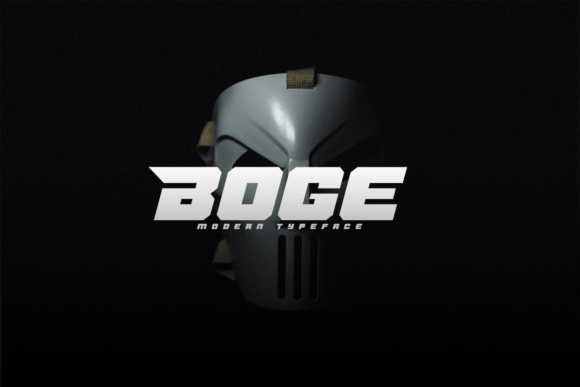
Unleash the Power of Boge Font: Experience Boldness Like Never Before!
In a world flooded with ordinary fonts, Boge Font emerges as a beacon of boldness, a true game-changer designed to bring your creative visions to life. This stunning display font, crafted by the masters at Line Creative, embodies the essence of strength and impact, poised to elevate your designs to unprecedented heights.
With Boge Font, you hold the key to unlocking a world of limitless possibilities. Its thick, robust letterforms exude a commanding presence, demanding attention and leaving an indelible mark on your audience. Whether you're crafting eye-catching headlines, captivating logos, or making a statement on social media, Boge Font stands ready to amplify your message and make it resonate with unrivaled impact.
Step into a realm where boldness reigns supreme, and let Boge Font be your trusted ally in creating designs that speak louder than words. Its distinctive character is a perfect fit for a multitude of projects, from branding and packaging to posters and digital marketing materials. Unleash your creativity and watch as Boge Font transforms your designs into masterpieces that command attention and leave a lasting impression.
But what truly sets Boge Font apart is its versatility, its ability to effortlessly adapt to a diverse range of design styles. Whether you're aiming for a modern, minimalist aesthetic or a more traditional, vintage feel, Boge Font has the chameleon-like ability to blend seamlessly and enhance your creative vision.
So, why settle for ordinary fonts when you can embrace the extraordinary? Discover the Boge Font today and embark on a journey of design excellence. Let its bold strokes ignite your imagination and propel your creative endeavors to new heights. Embrace the power of Boge Font and unlock the true potential of your designs!